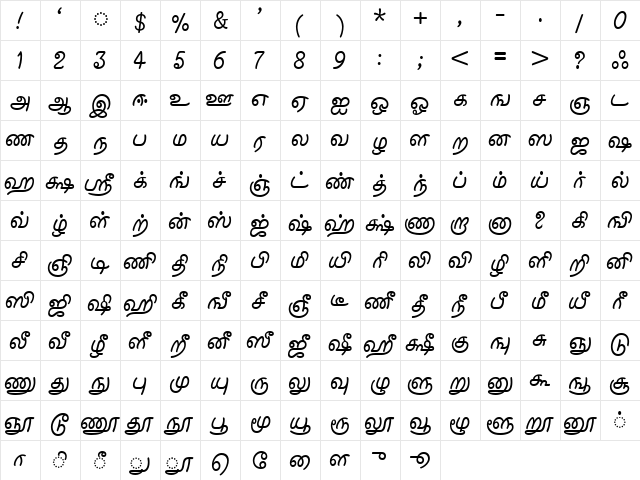
IdsTamil_TG_5_ Normal
IdsTamil_TG_5_ is a composed and adaptable typeface that performs quietly and consistently across a wide range of design contexts.